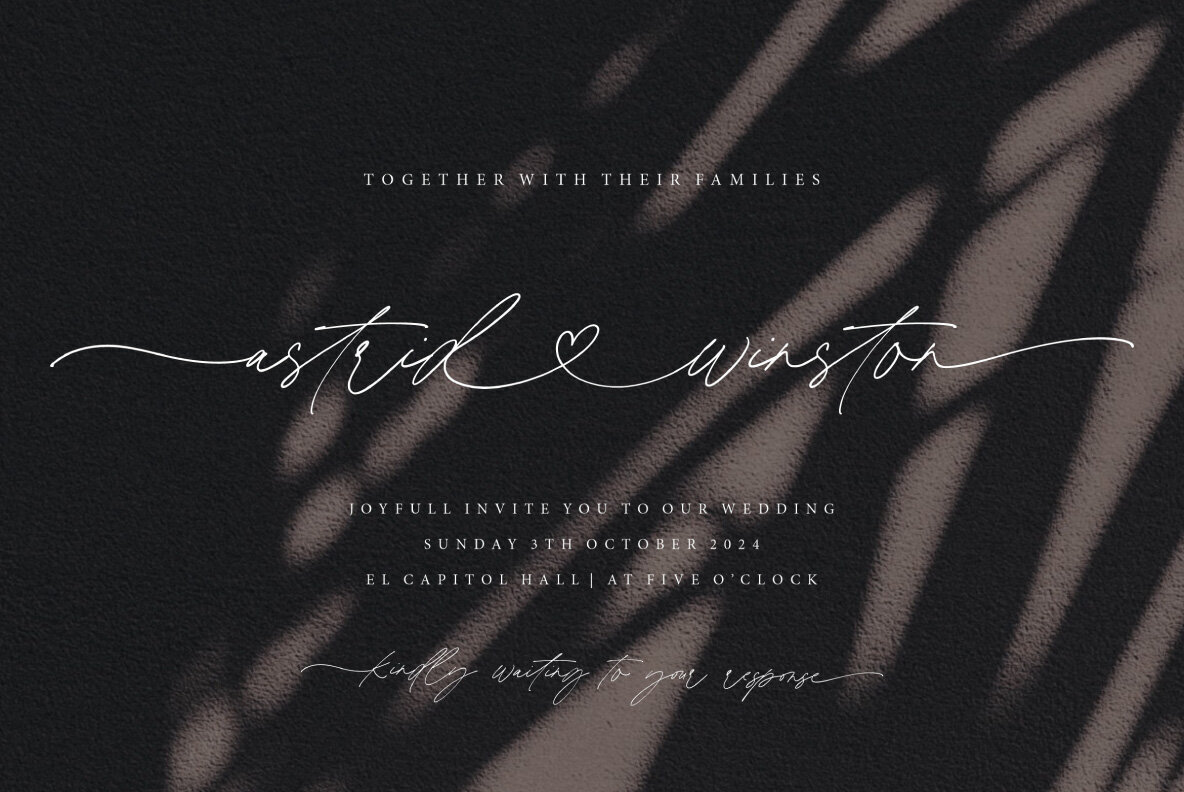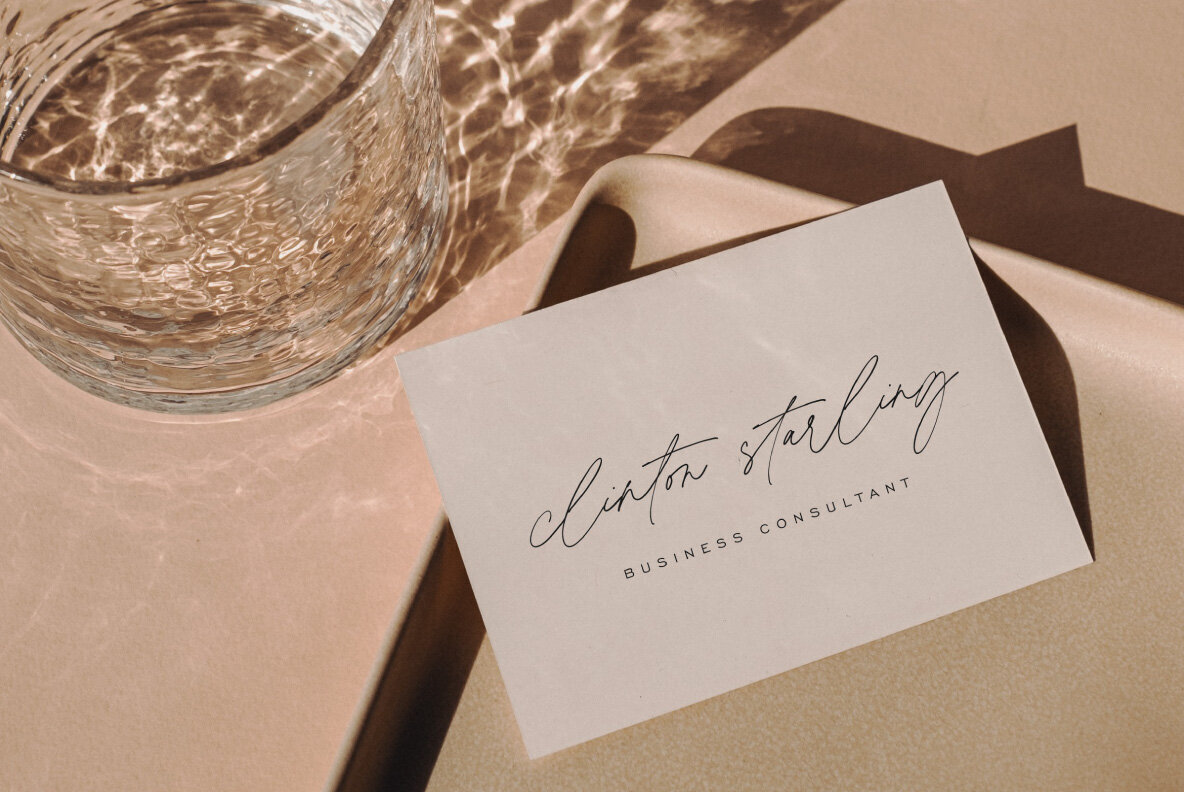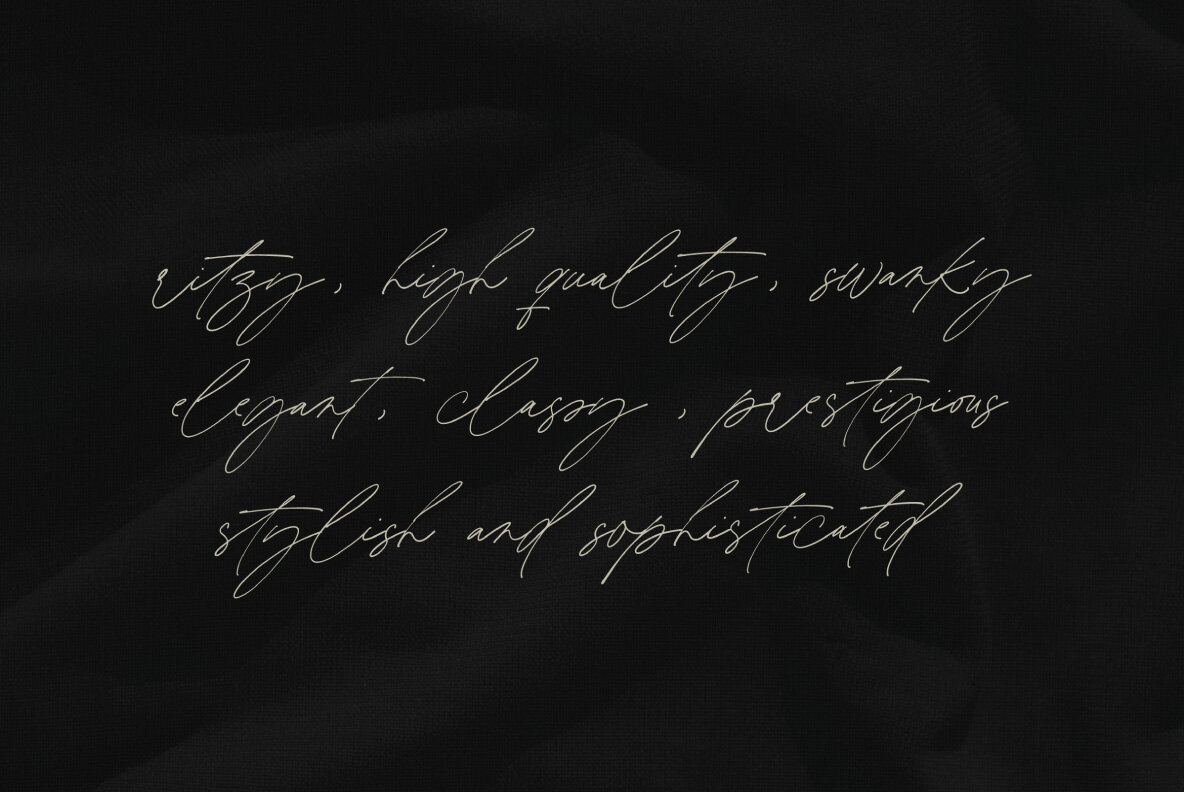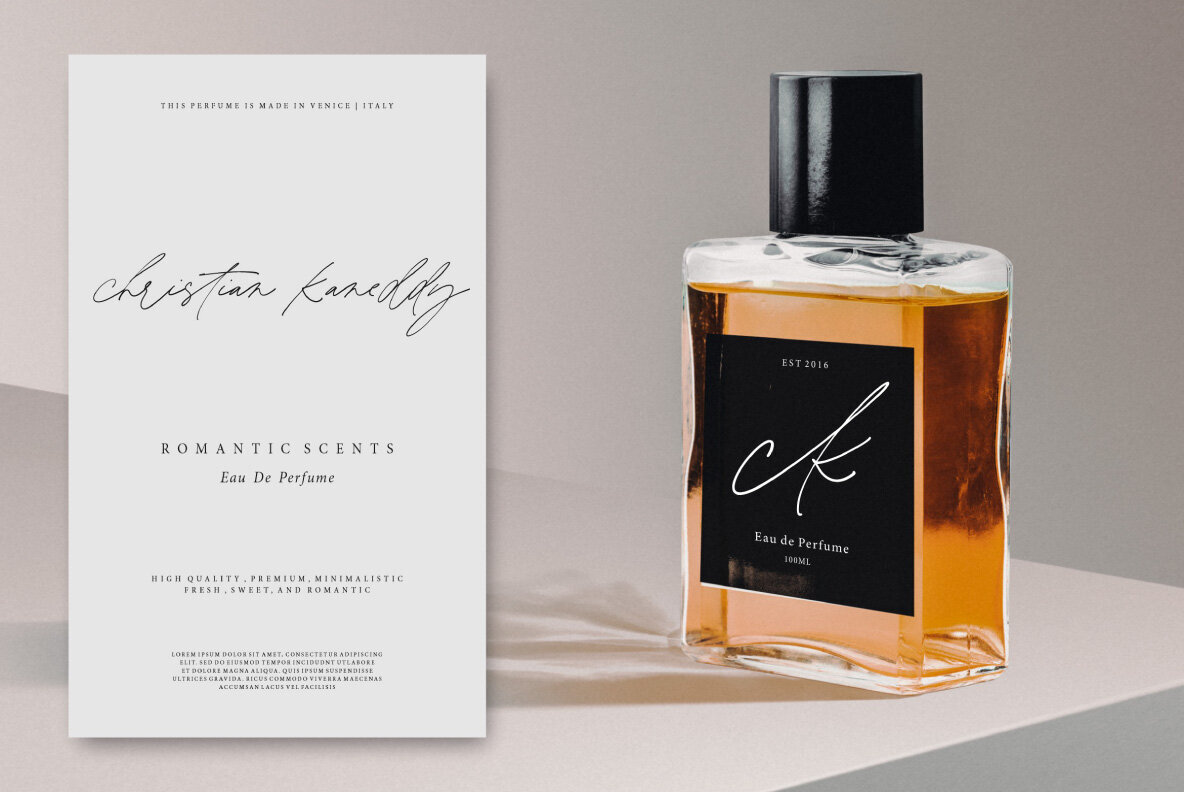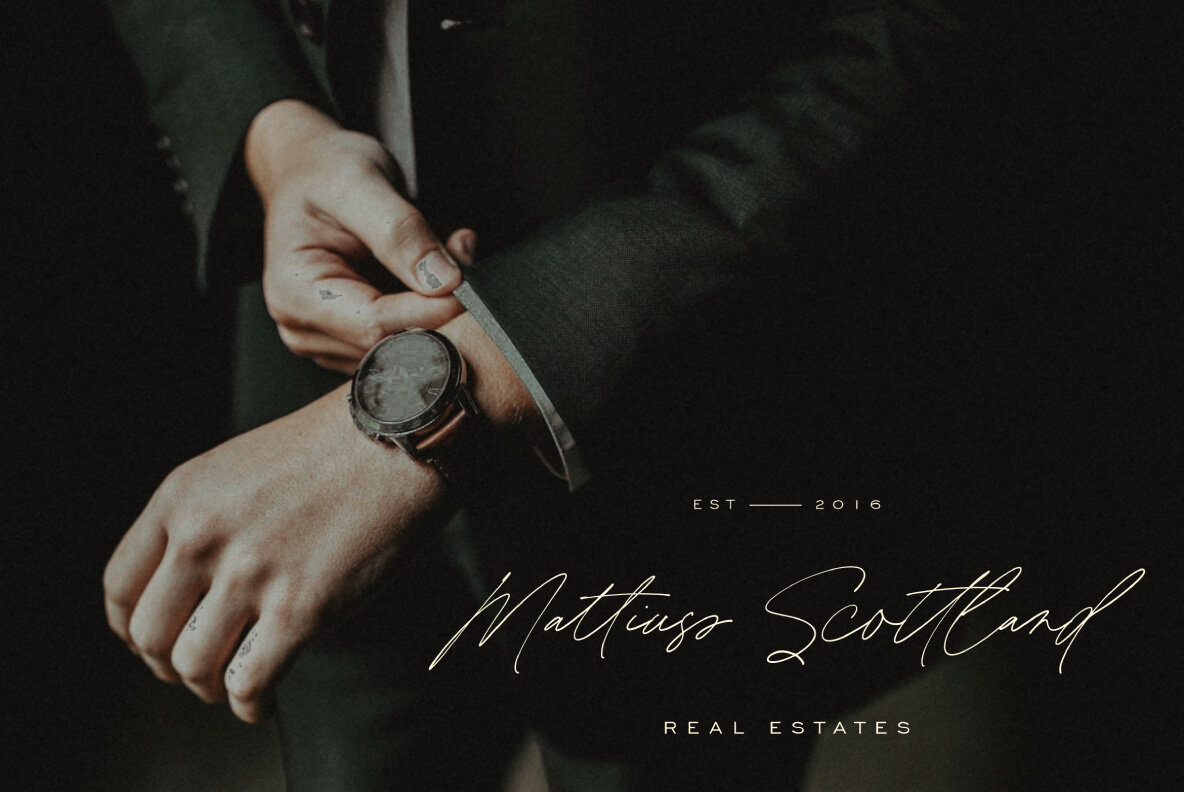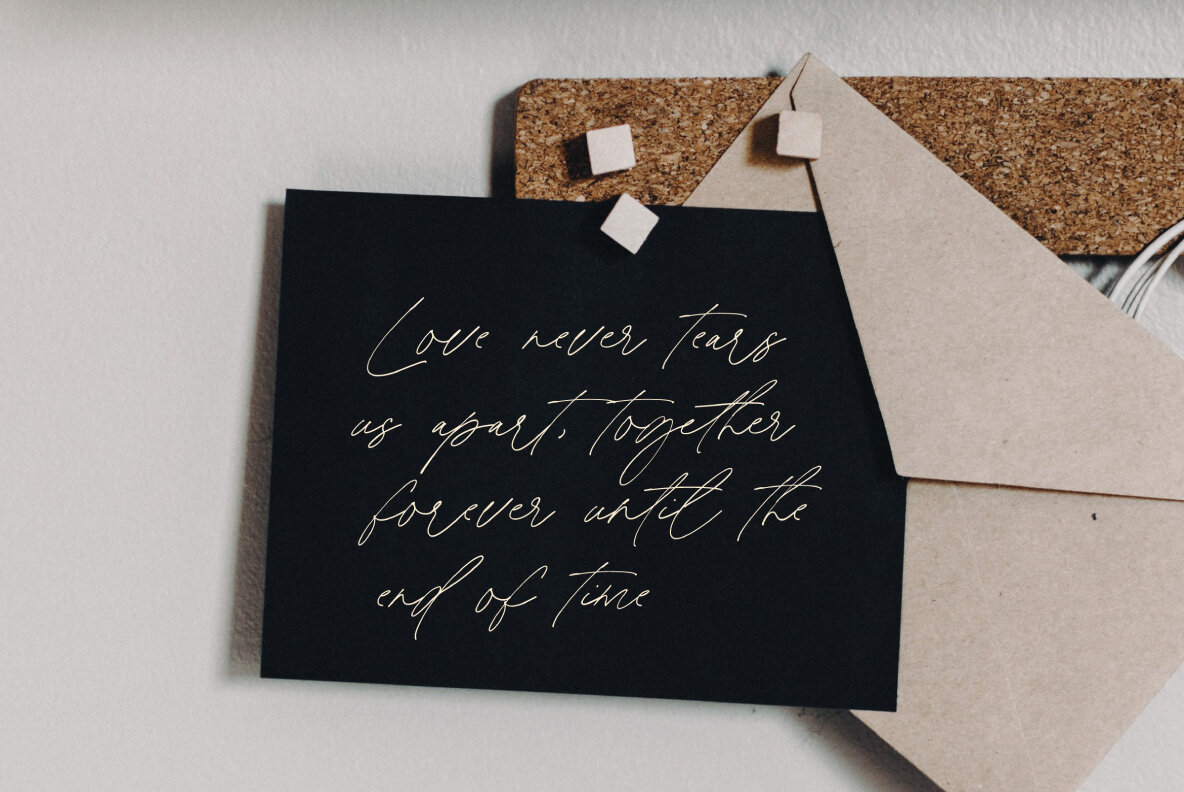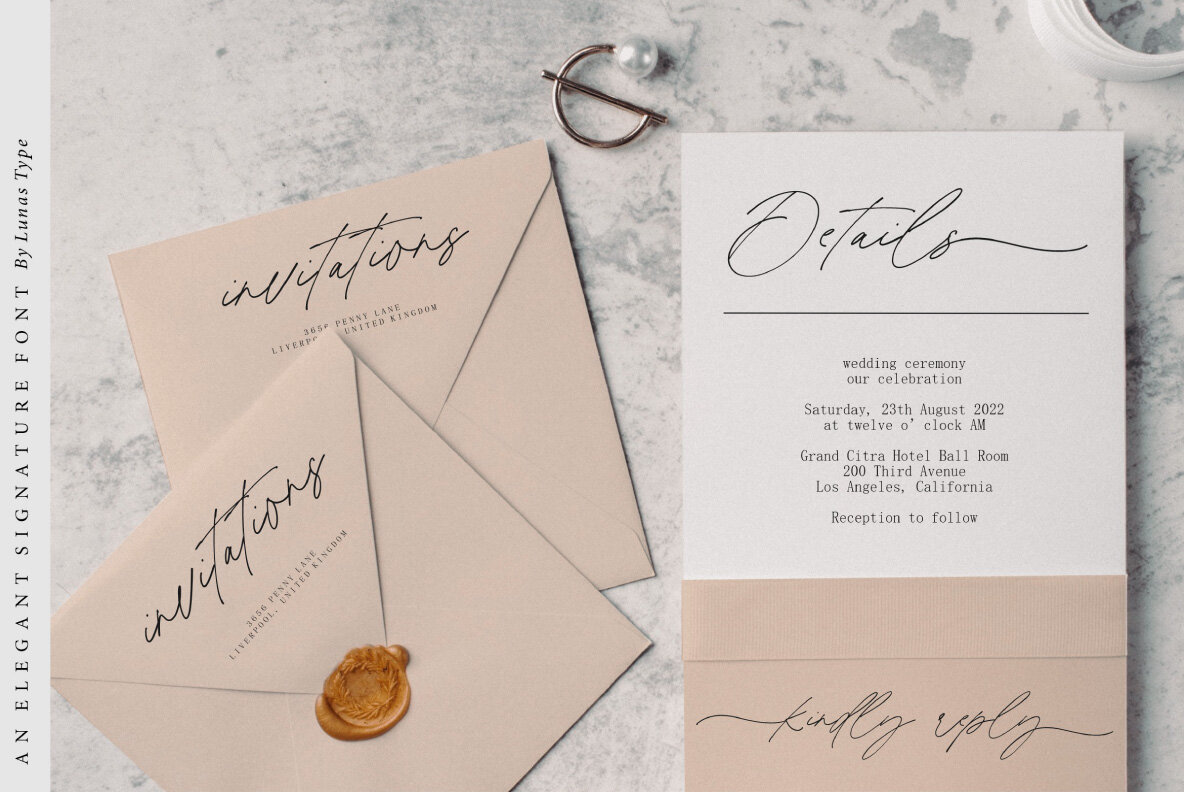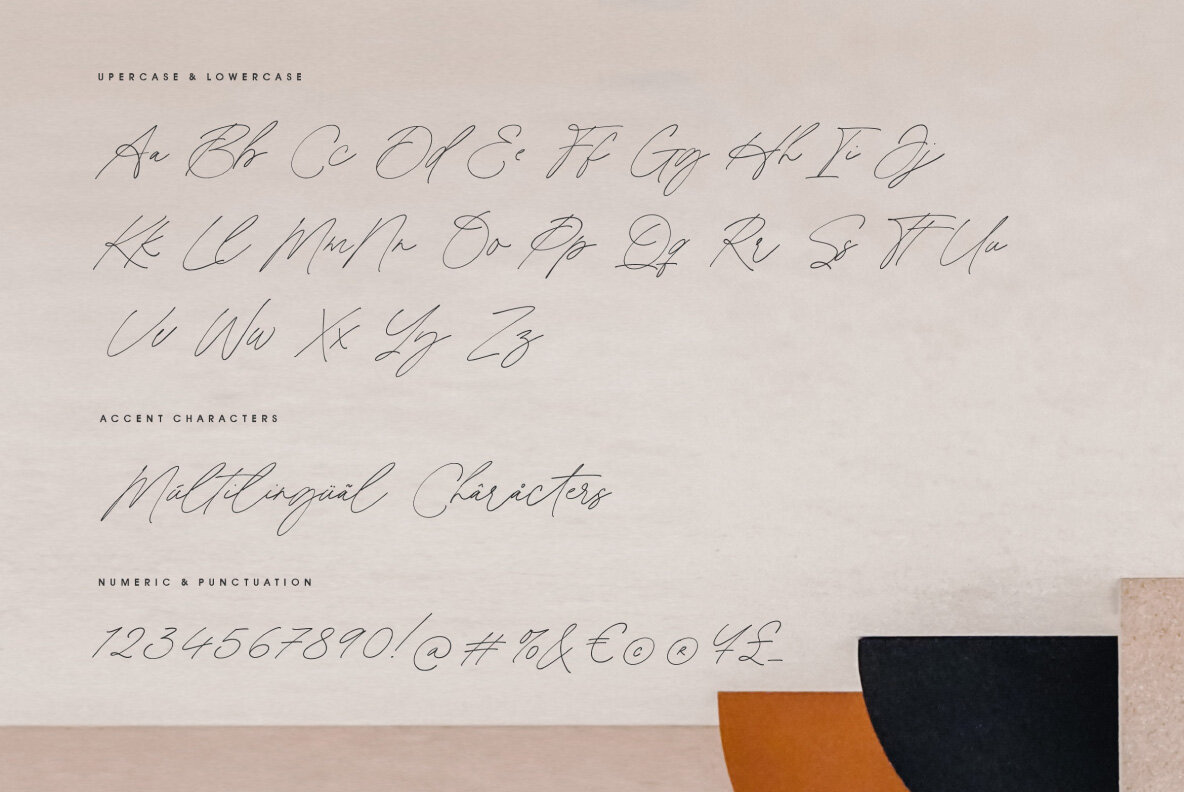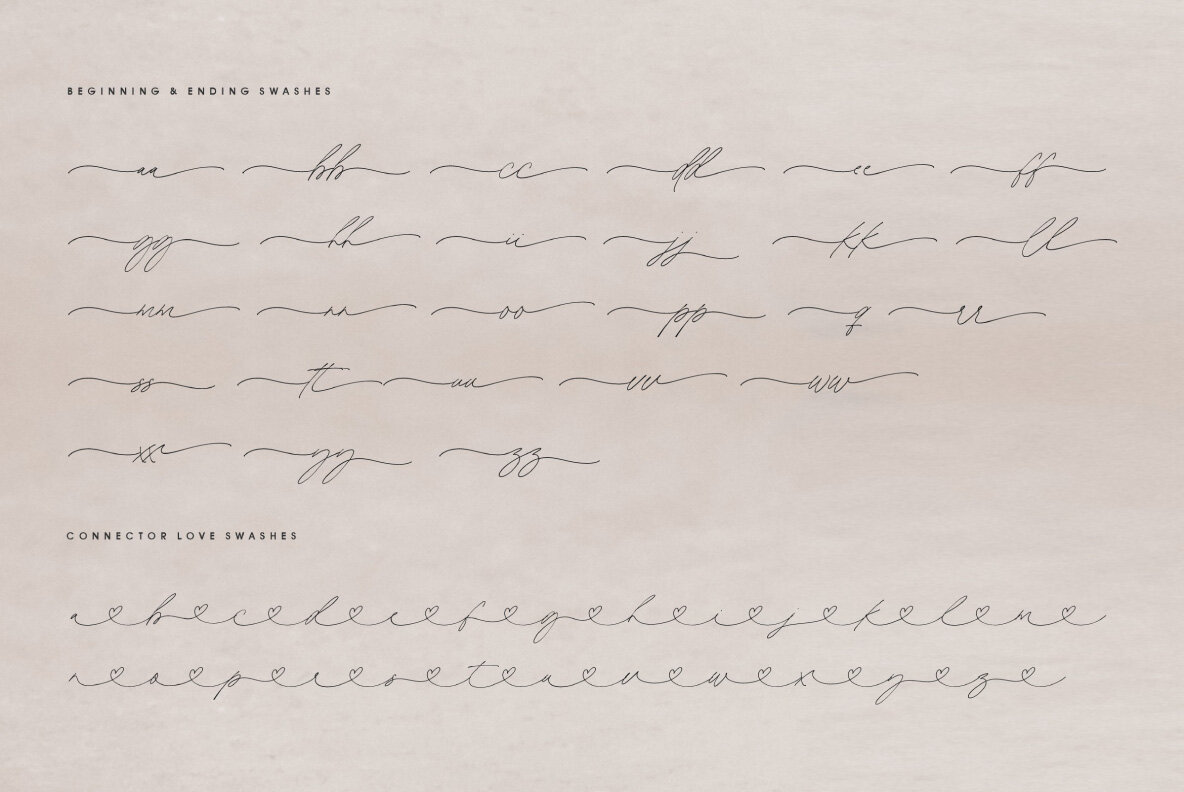
Heritage Signature Font
Heritage Signature Regular
This font has an elegant and modern look, making it perfect for any design need. The unique shapes give each letter a natural flow that will make your work stand out against the competition! You can use this typeface in many ways including logos or even on t-shirts if you want them to be fashionable as well as commemorate something important with their own personal signature style
– Ending Swashes, beginning swashes, Love connector swashes.
– Underline Swashes (just type _1, _2, etc)
– Numeral & Punctuation.
– ligature.
– Multilingual Support.